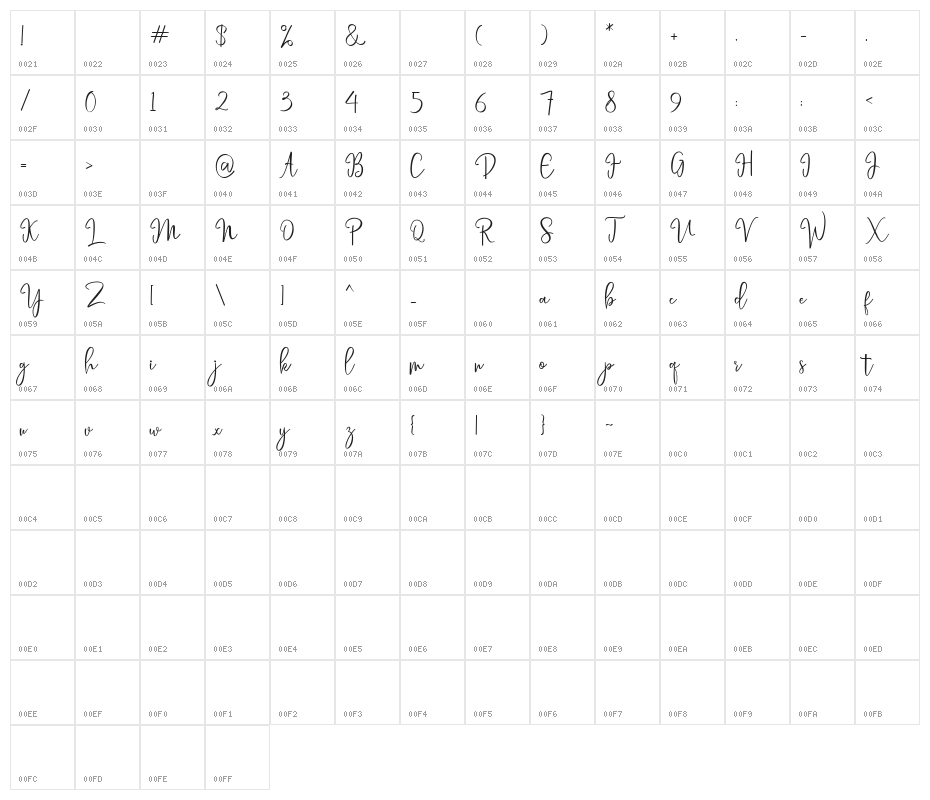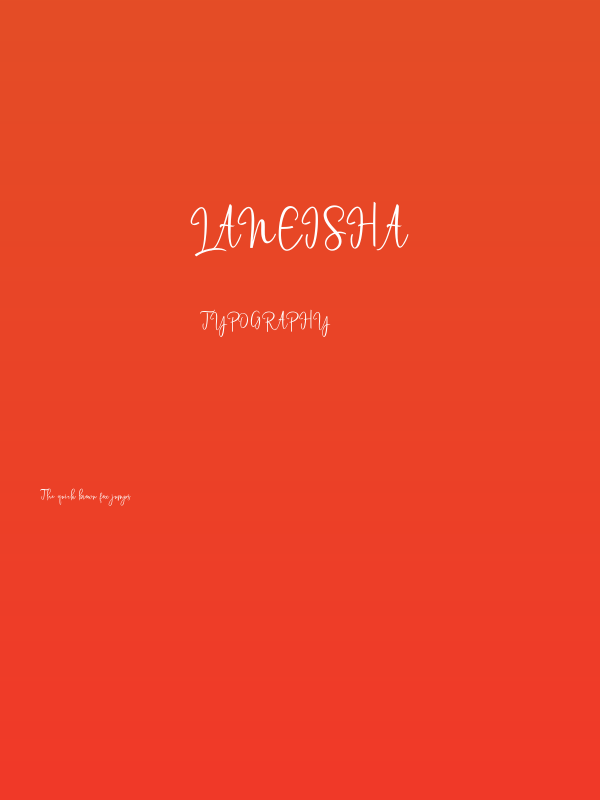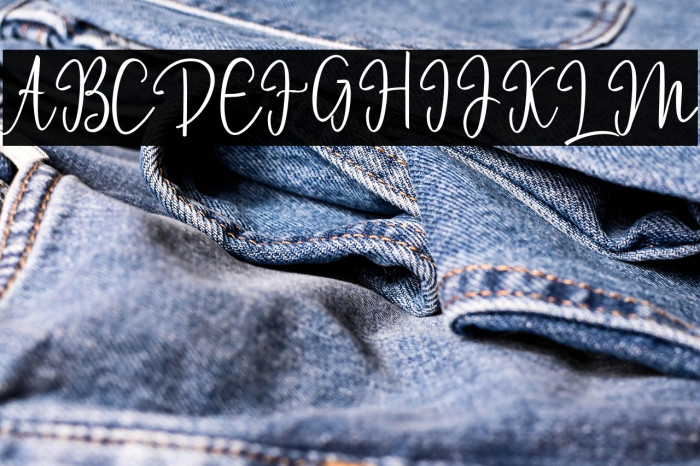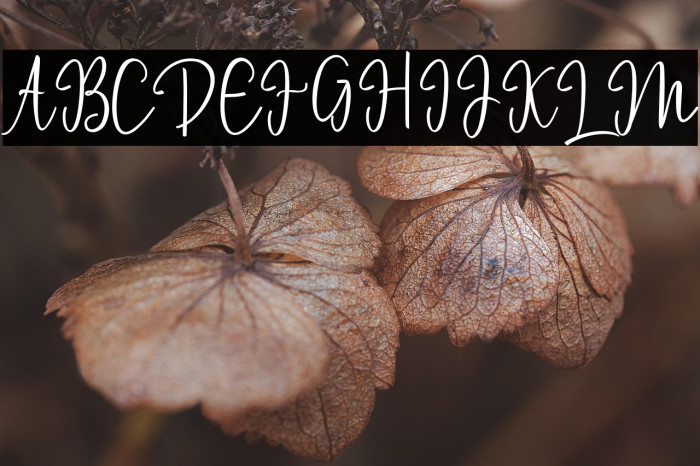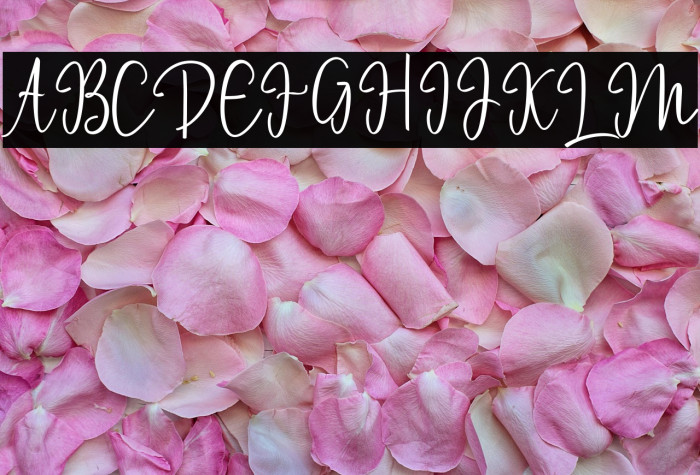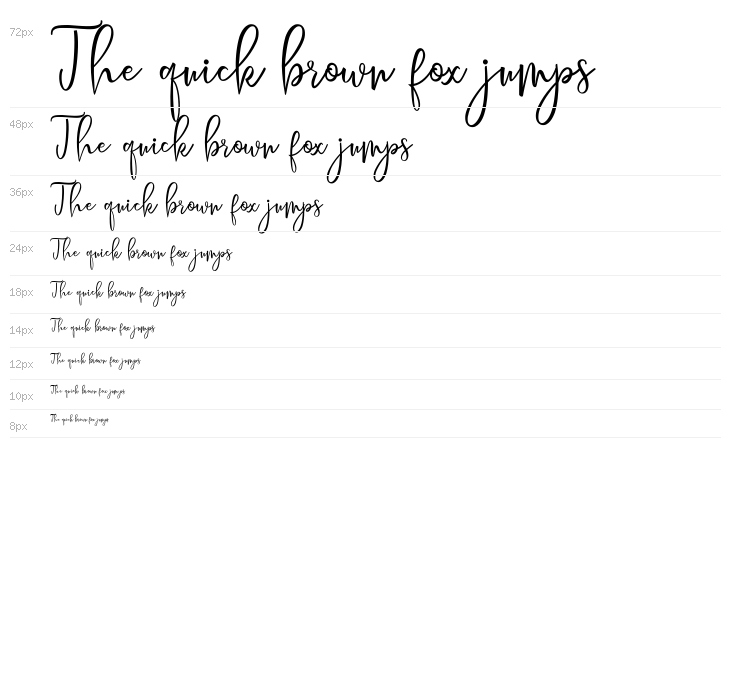
laneisha Font
laneisha Description
This font features an elegant, flowing script style with a handwritten appearance. The uppercase letters are tall and graceful, with sweeping curves and loops that give a sense of fluidity and movement. The lowercase letters are similarly styled, maintaining a consistent flow and connection between characters. The numerals are clear and distinct, with a slight slant that complements the overall script style. Special characters are designed to match the elegance of the letters, making them suitable for decorative purposes. The font's overall aesthetic is sophisticated and artistic, making it ideal for projects that require a personal touch.
| Proposed Projects | Wedding invitations, greeting cards, branding, and logo design. |